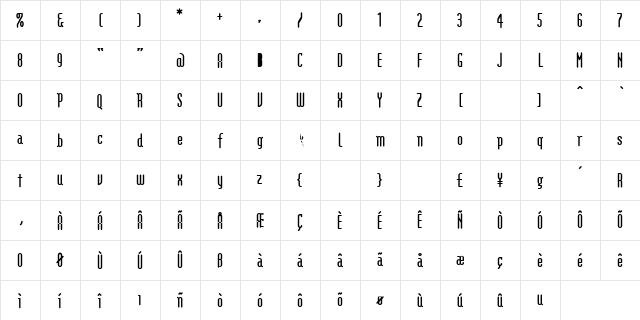
Modula Bold
Modula Family
Modula Bold
Design Context for Modula
Modula is a composed and adaptable typeface that performs quietly and consistently across a wide range of design contexts. Its bold stroke weight gives it real presence on the page.